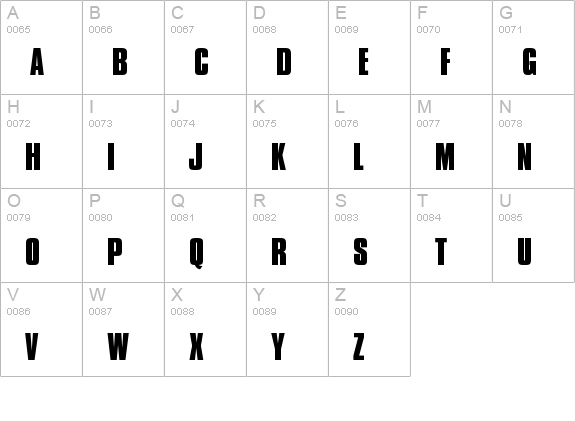
CompactaEF-Bold is a strong, high-contrast variant in the CompactaEF typeface family \xE2\x80\x94 well suited to headlines, attention-grabbing titles, and strong calls-to-action.
CompactaEF-Bold is a modern and sleek typeface that exudes a sense of strength and confidence. Its bold and compact design makes it perfect for headlines, titles, and branding projects. This versatile font brings a touch of sophistication to any design, while also ensuring readability and impact. What makes CompactaEF-Bold even more appealing is that it is available for free download at FontsMarket.com. This means that designers and creatives can easily access this high-quality font and use it in their projects without any cost. With its clean lines and contemporary aesthetic, CompactaEF-Bold is a must-have addition to any designer's toolkit.